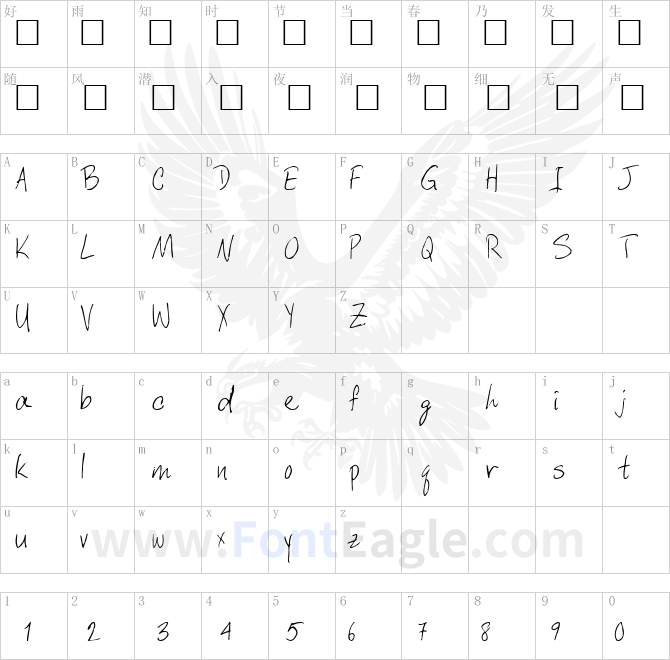
CrappyWriting is a great font, widely used in graphic design, single-page menu design, poster design and other fields, and is deeply loved by designers.CrappyWriting download.